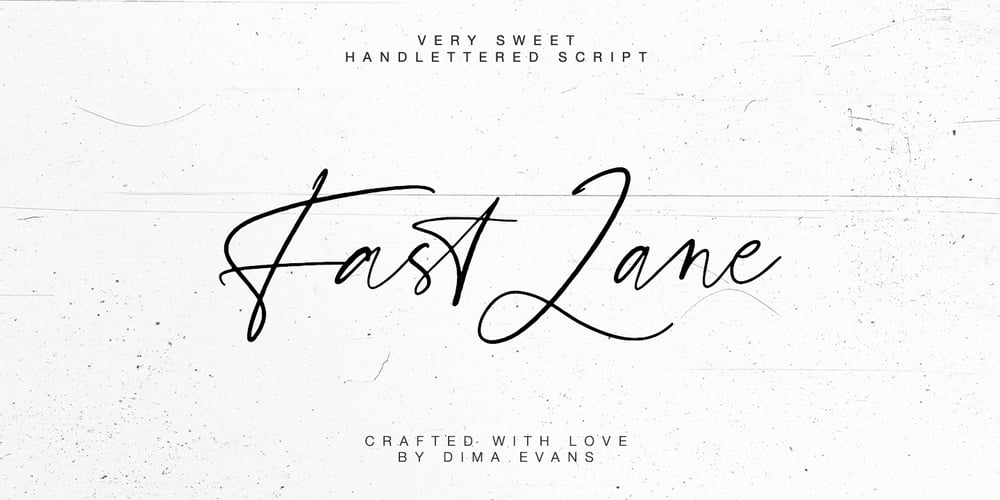
Fast Lane
Fast Lane font
Fast Lane Font Family was designed by Dmitrii Chirkov and published by Supfonts. Fast Lane contains 1 styles and family package options. Fast Lane Script it is a Lettering chick font with exquisite accents. It is perfect for branding, wedding invitations and invitation cards and much more. It includes a full set of gorgeous uppercase and lowercase letters, numbers, a large selection of punctuation marks & ligatures.Includes: Latin languages support Uppercase and lowercase Numbers and punctuation Ligatures Check out my blog: https://www.instagram.com/di.zigner https://pinterest.com/dmitriychirkov7 Enjoy